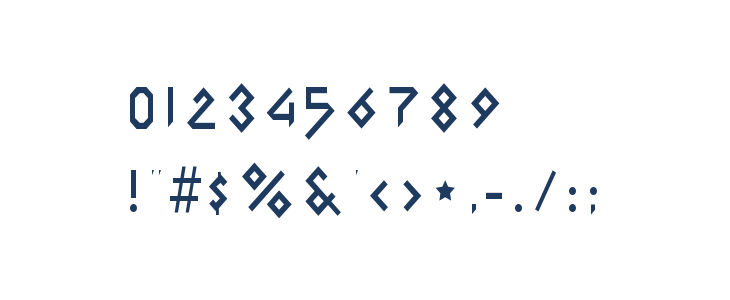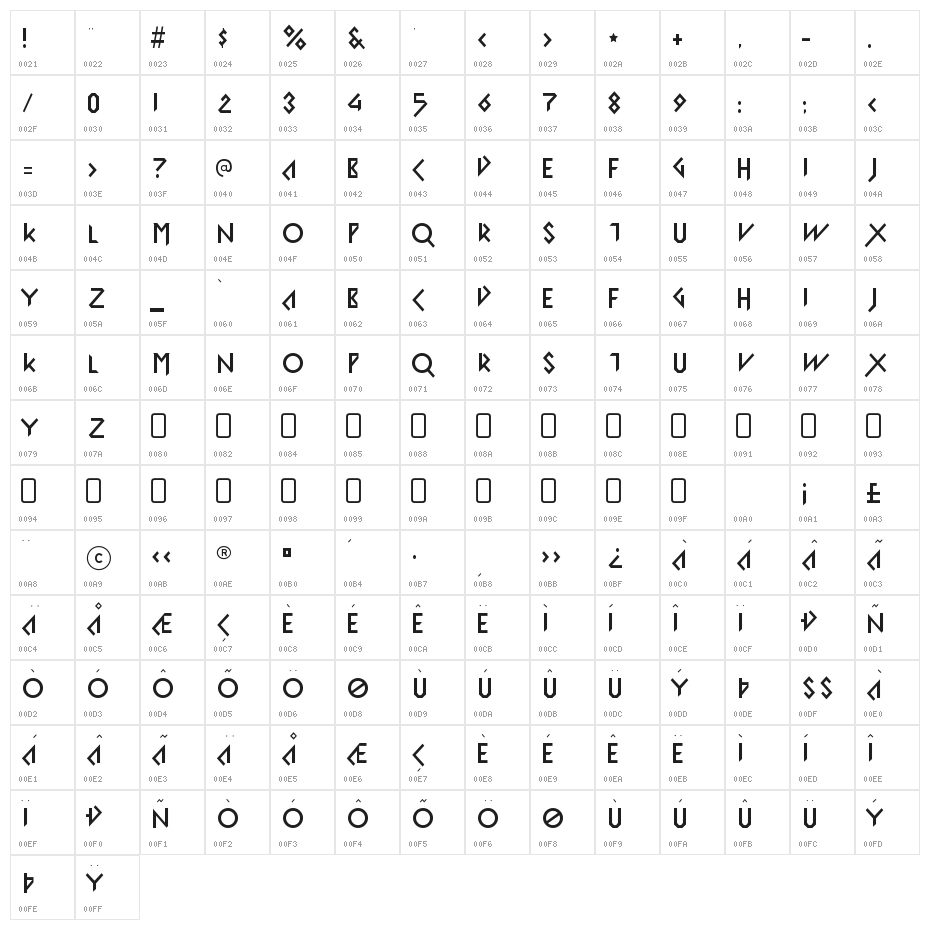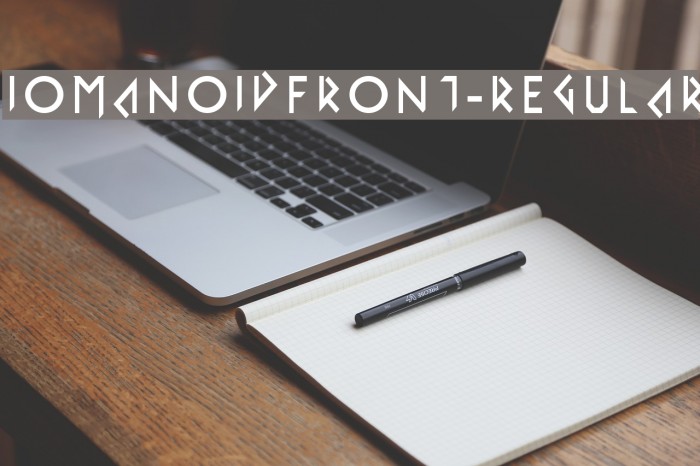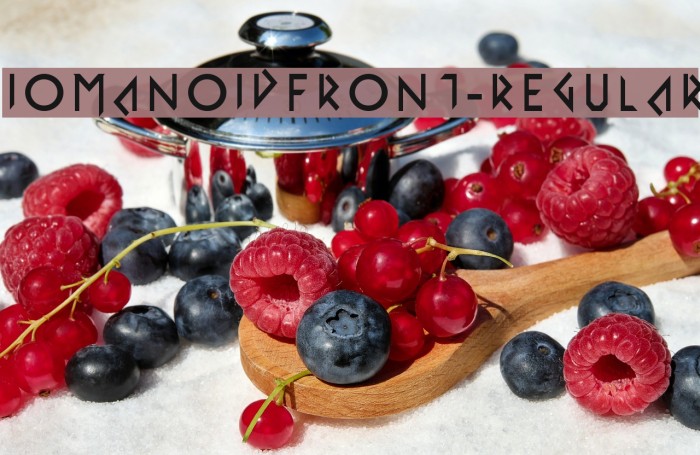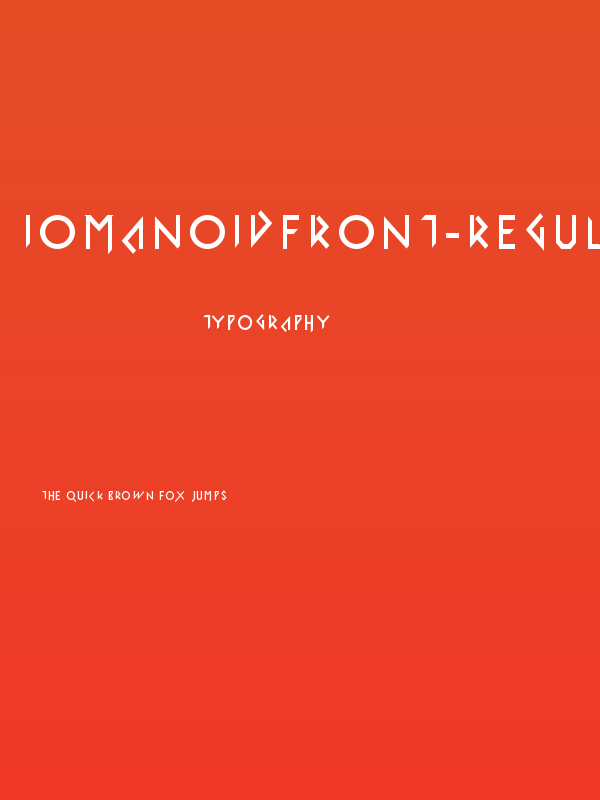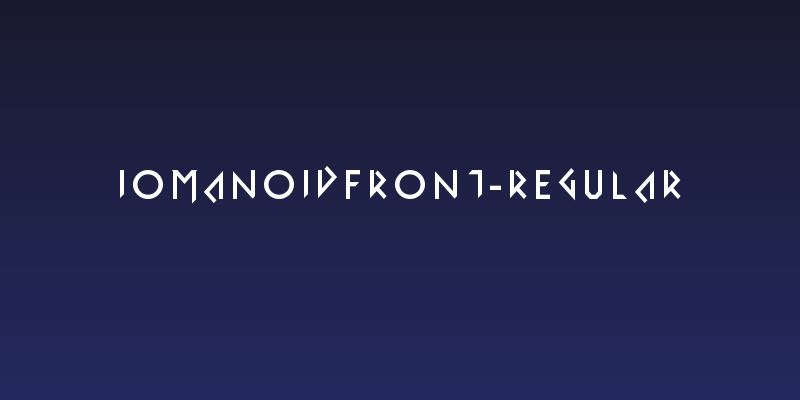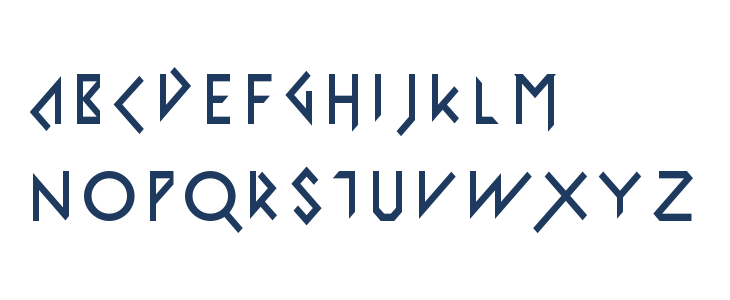
IomanoidFront-Regular Font
IomanoidFront-Regular Description
This font features a futuristic and angular design, characterized by sharp edges and geometric shapes. The uppercase letters are bold and striking, with a consistent height and width that create a uniform appearance. The lowercase letters maintain the same angular style, offering a cohesive look across all characters. Numbers and special characters are designed to match the overall aesthetic, with each symbol crafted to fit seamlessly into the font's modern and edgy theme. The font's unique style makes it ideal for projects that require a contemporary and eye-catching typeface.
| Proposed Projects | Ideal for sci-fi themed designs, technology branding, video game titles, and modern posters. |